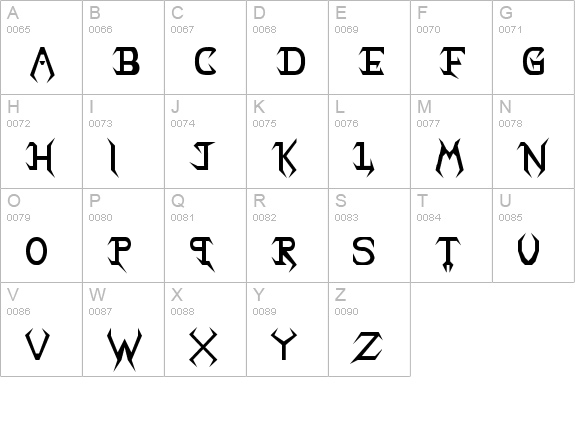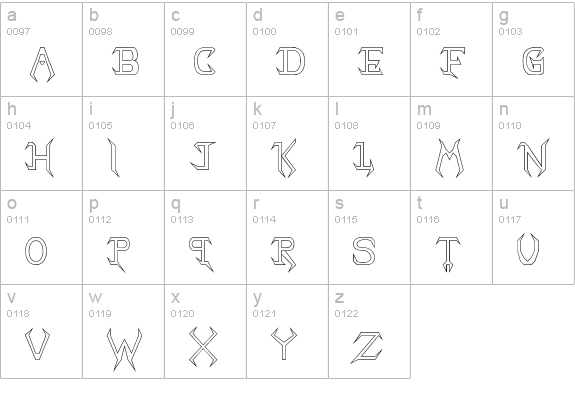
Marlen The Ponderosa Font Details
Marlen The Ponderosa font is a captivating and elegant typeface that will add a touch of sophistication to any design project. With its graceful curves and intricate details, this font is perfect for creating eye-catching logos, branding materials, and editorial designs. Designed with a classic yet modern approach, Marlen The Ponderosa font strikes the perfect balance between traditional and contemporary styles. Its clean lines and well-defined letterforms make it highly legible, ensuring that your message will be effectively conveyed to your audience. One of the most remarkable features of Marlen The Ponderosa font is that it is available for free download at FontsMarket.com. This means that you can easily access and utilize this stunning typeface without any cost. Its availability as a free font allows designers, both professionals and enthusiasts, to access high-quality design resources without breaking the bank. Whether you are working on a personal project, a professional assignment, or simply exploring your creative side, Marlen The Ponderosa font is a versatile tool that will elevate your designs to new heights. Its timeless elegance and versatility make it suitable for a wide range of applications, from print to digital media. So why wait? Download Marlen The Ponderosa font today from FontsMarket.com and unleash your creativity without any limitations. Start creating stunning designs that will captivate your audience and leave a lasting impression. With Marlen The Ponderosa font, the possibilities are endless, and your designs will truly stand out from the crowd.